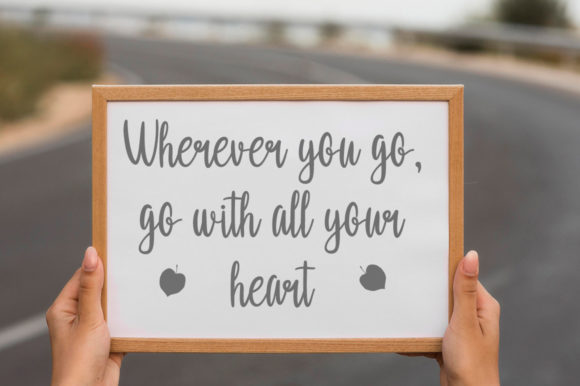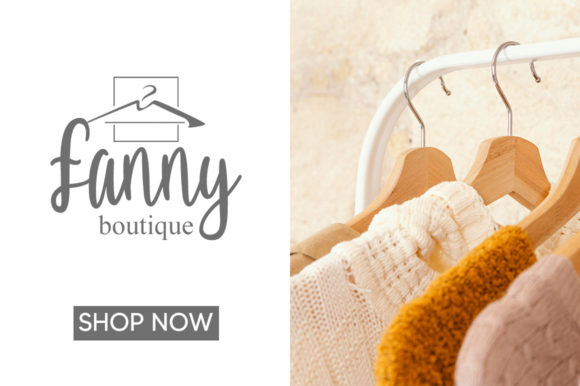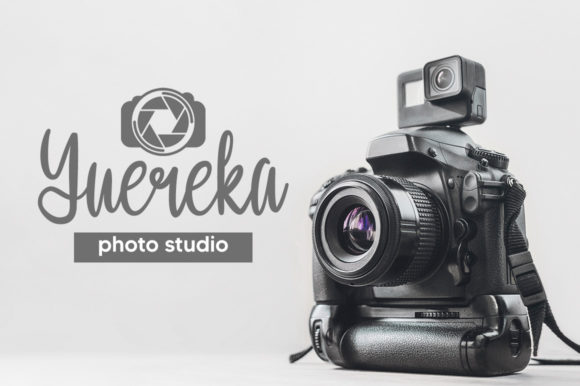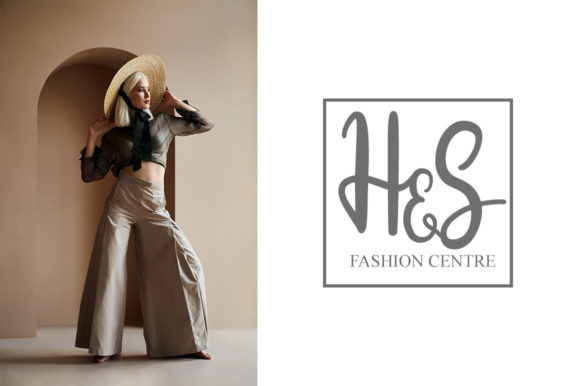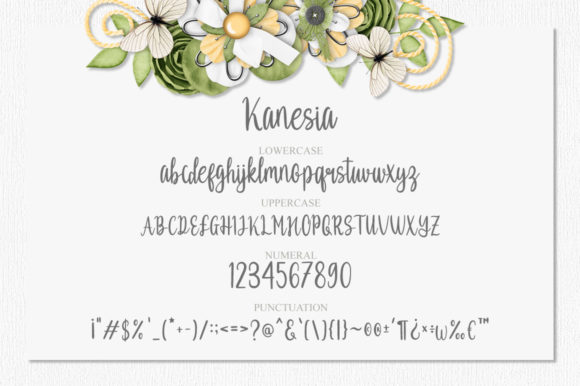
Introduction to Kanesia Font
Kanesia is a beautiful, lovely script font.
Fall in love with its well balanced and incredibly versatile style, and use it to create spectacular designs .